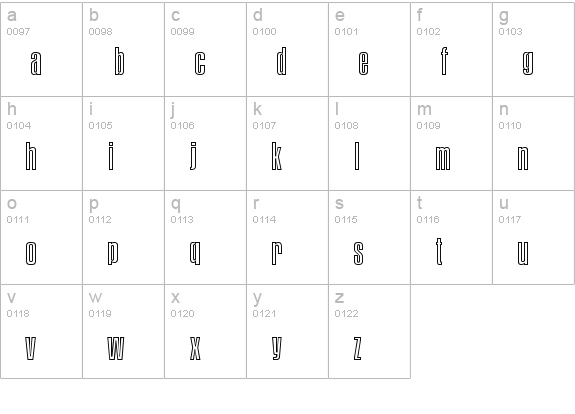
P700-Sans-Outline-Regular Font Details
P700-Sans-Outline-Regular is the standard, neutral variant in the P700 typeface family \xE2\x80\x94 well suited to general body text, paragraphs, and standard typographic work.
The P700-Sans-Outline-Regular font is a versatile and modern typeface that is perfect for a wide range of design projects. Its clean lines and contemporary appearance make it a great choice for both digital and print applications. This font is free to download at FontsMarket.com, allowing designers to easily access and utilize it in their projects. With its sleek outline style and clear legibility, the P700-Sans-Outline-Regular font is sure to make a statement and enhance any design it is used in. Whether you are working on a website, branding materials, or any other graphic design project, this font is a fantastic addition to your toolkit. Download it for free today and elevate your designs with the P700-Sans-Outline-Regular font.